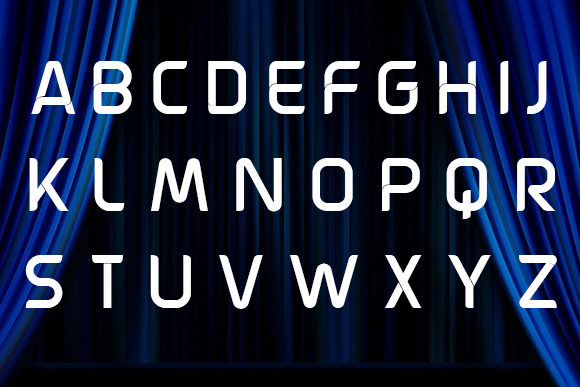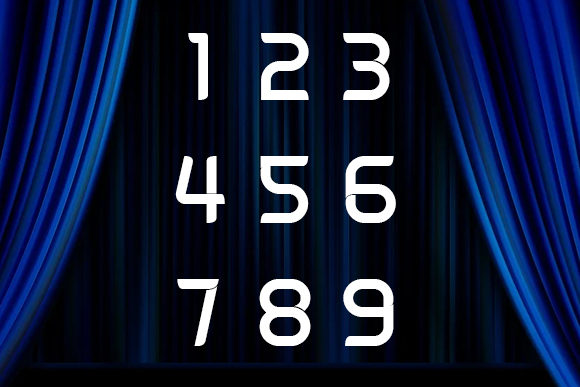
Introduction to Revealed Font
Revealed is a stylish and elegant Sans Serif font.
It looks stunning on wedding invitations, thank you cards, quotes, greeting cards, logos, business cards, and any other design that needs a clean touch .